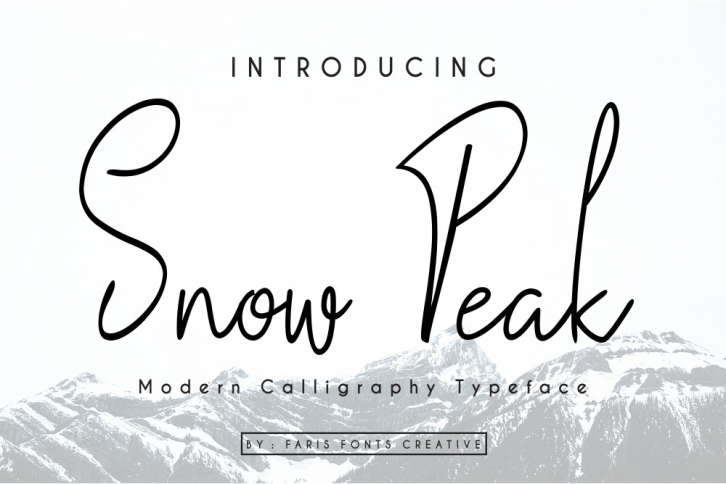
Snow Peak is a great font that was designed by Faris Fonts Creative. Imagine the amount of combinations you can create using this font! The archive is 18.51 MB and it was released on September 15, 2018. Snow Peak looks beautiful on wedding invitations, greeting cards, logos, posters, labels, t-shirt designs, logos, business cards and is perfect for use in ink or watercolor works, fashion, magazines, packaging and food menus, children's books and more!